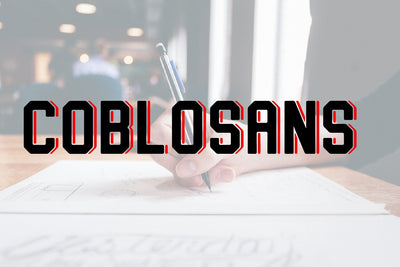
COBLOSANS
COBLOSANS is refreshing patterns against unusual things, to have charm and character and make it more elegant and exclusive. suitable to use various interests and stay adjust to your needs, with additional touches in the form of layers.